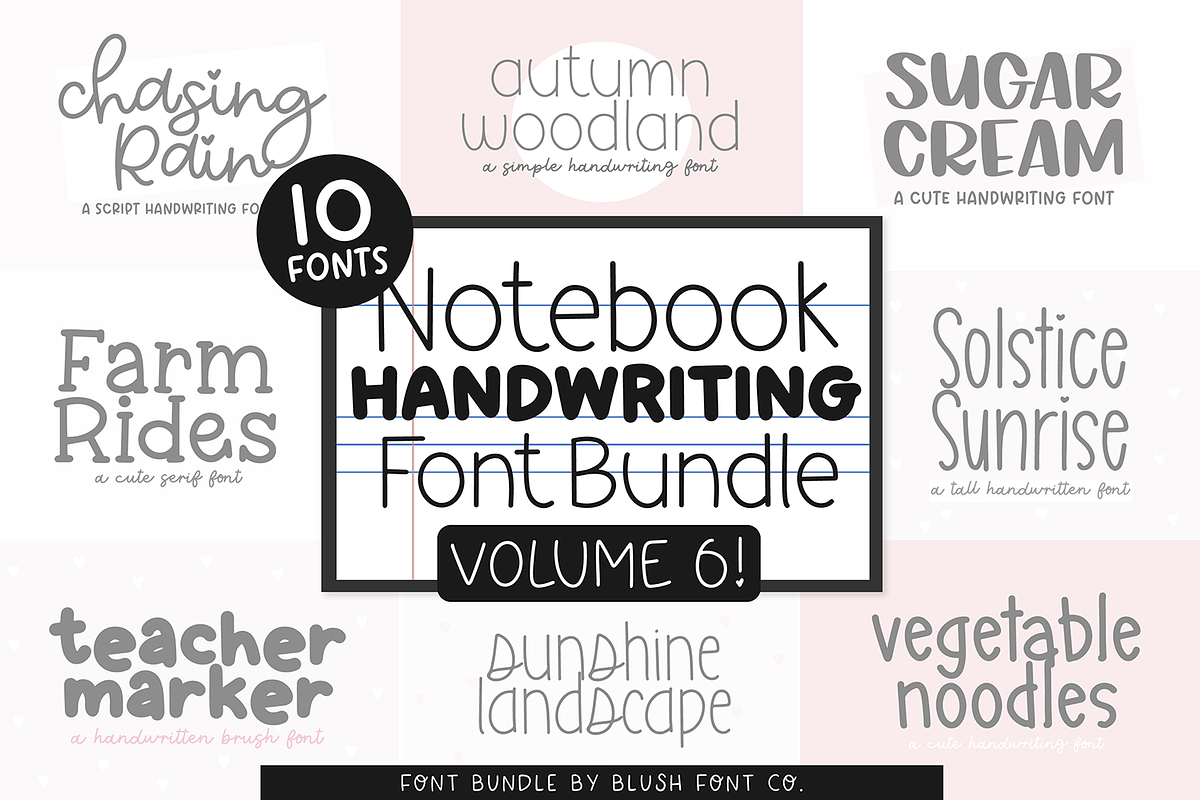
Looking for that personal, handwritten touch in your designs? Notebook Handwriting Font Bundle V6 Free Download is a charming collection of hand-drawn typefaces that bring authenticity, warmth, and creativity to your projects. Whether you're working on school-themed graphics, digital planners, note-style posts, or casual branding, this bundle has the perfect font for you.
With a variety of handwriting styles included, from neat script to playful doodle-like fonts, this bundle offers incredible versatility. It contains full sets of uppercase and lowercase letters, numerals, punctuation, and supports multiple languages — making it a powerful toolkit for every designer.